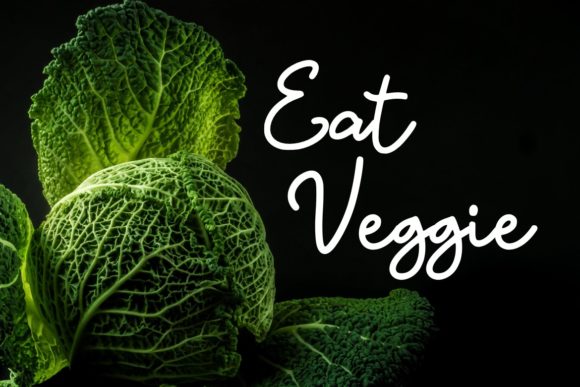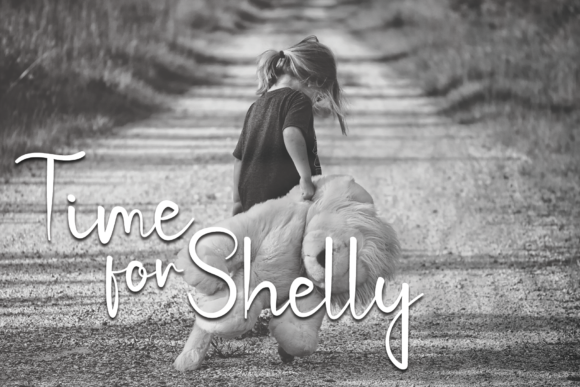
Glypher Font
About Glypher Font
Glypher is a stylish handwritten font which will look beautiful on invitations, greeting cards, branding materials, quotes, posters, and more.
Make your designs stand out with this cheerful font.